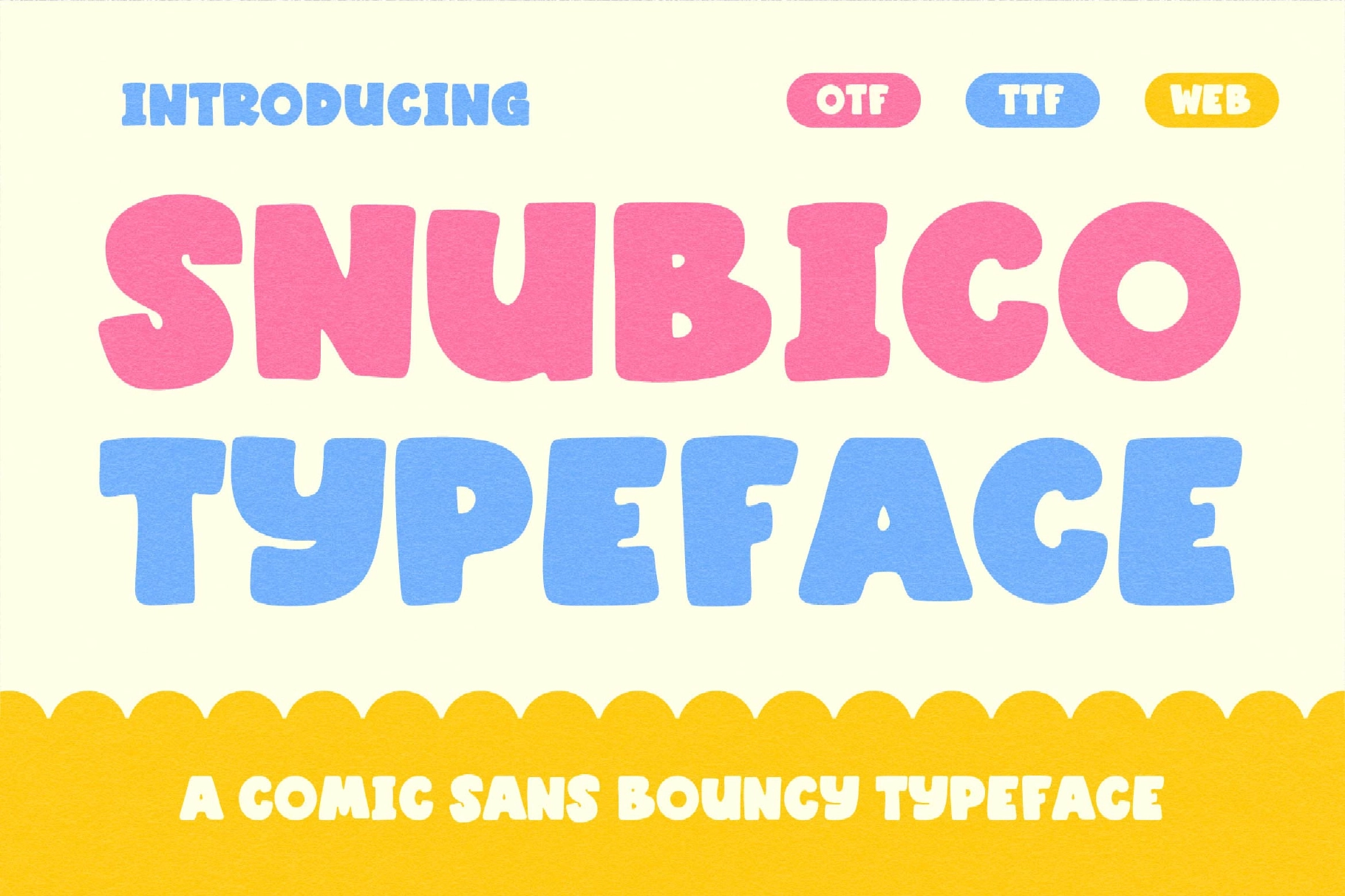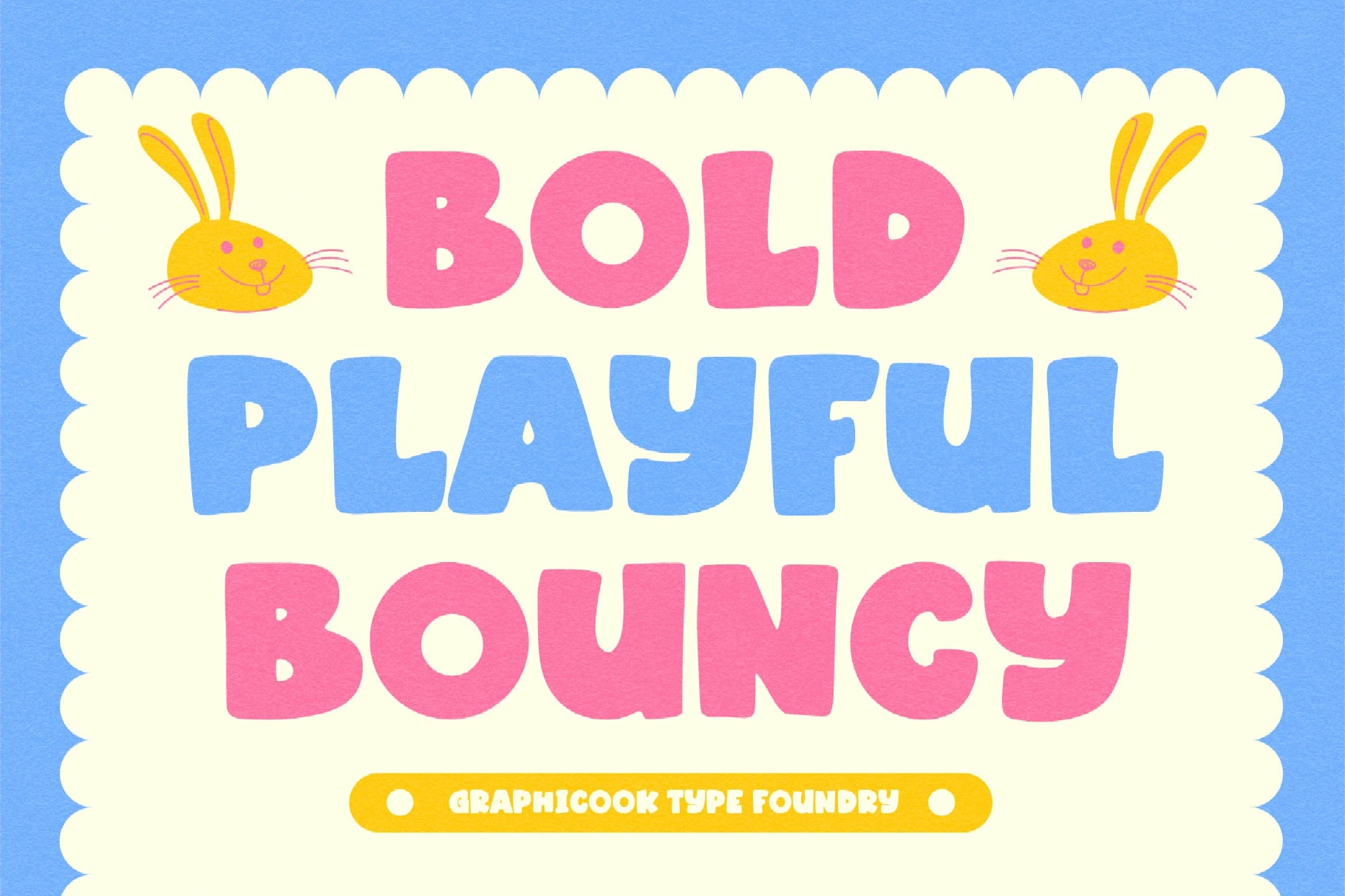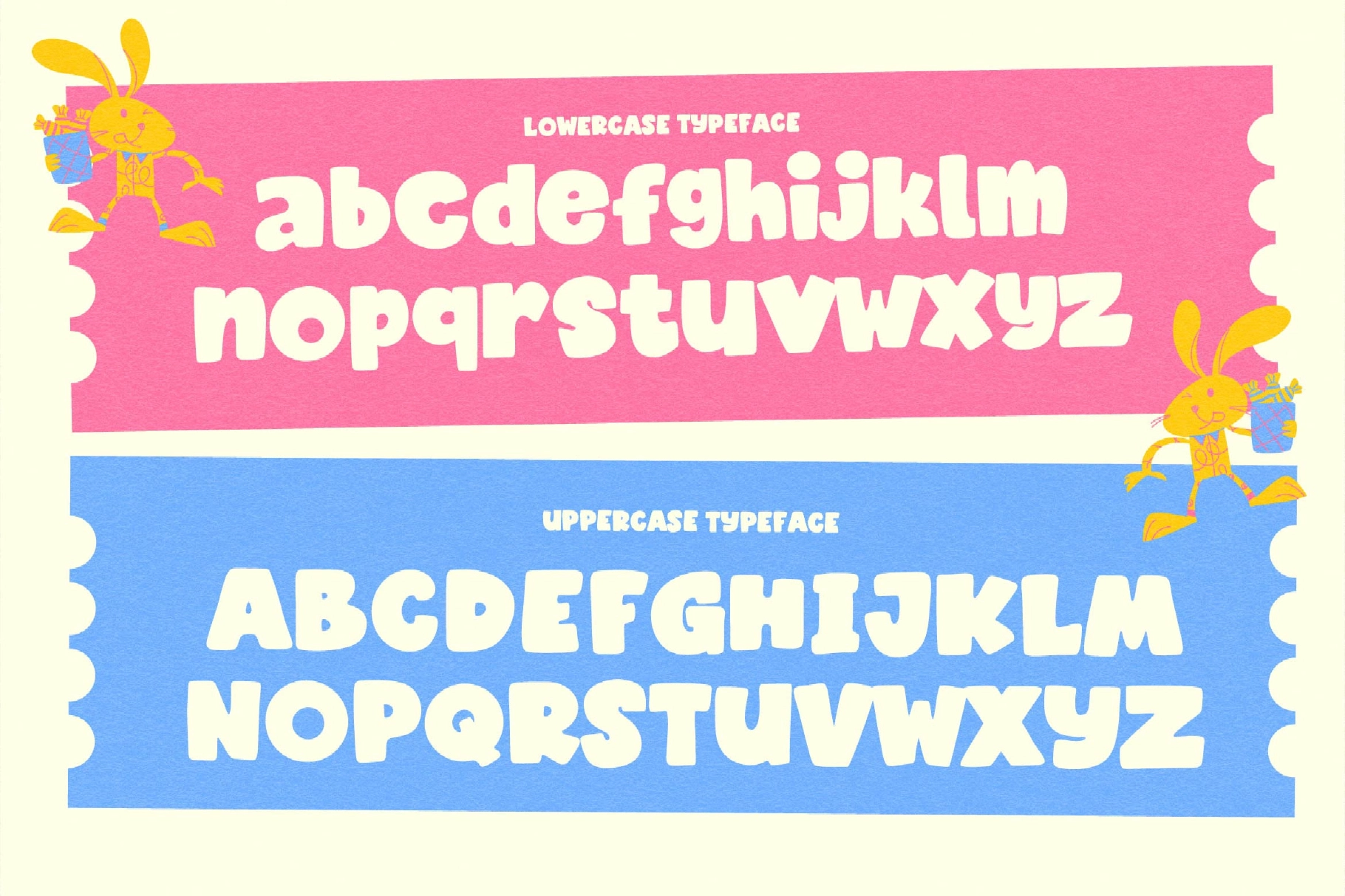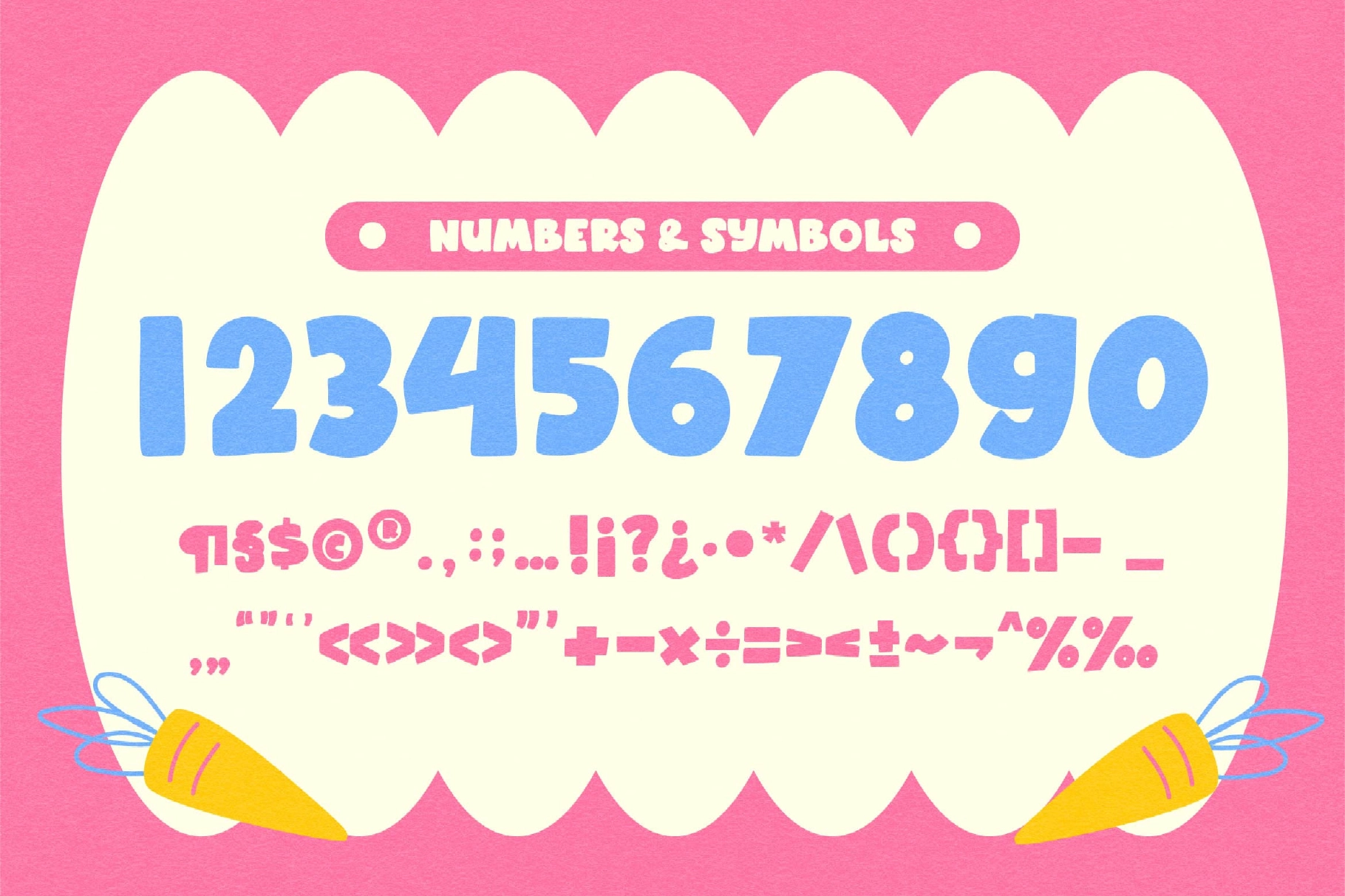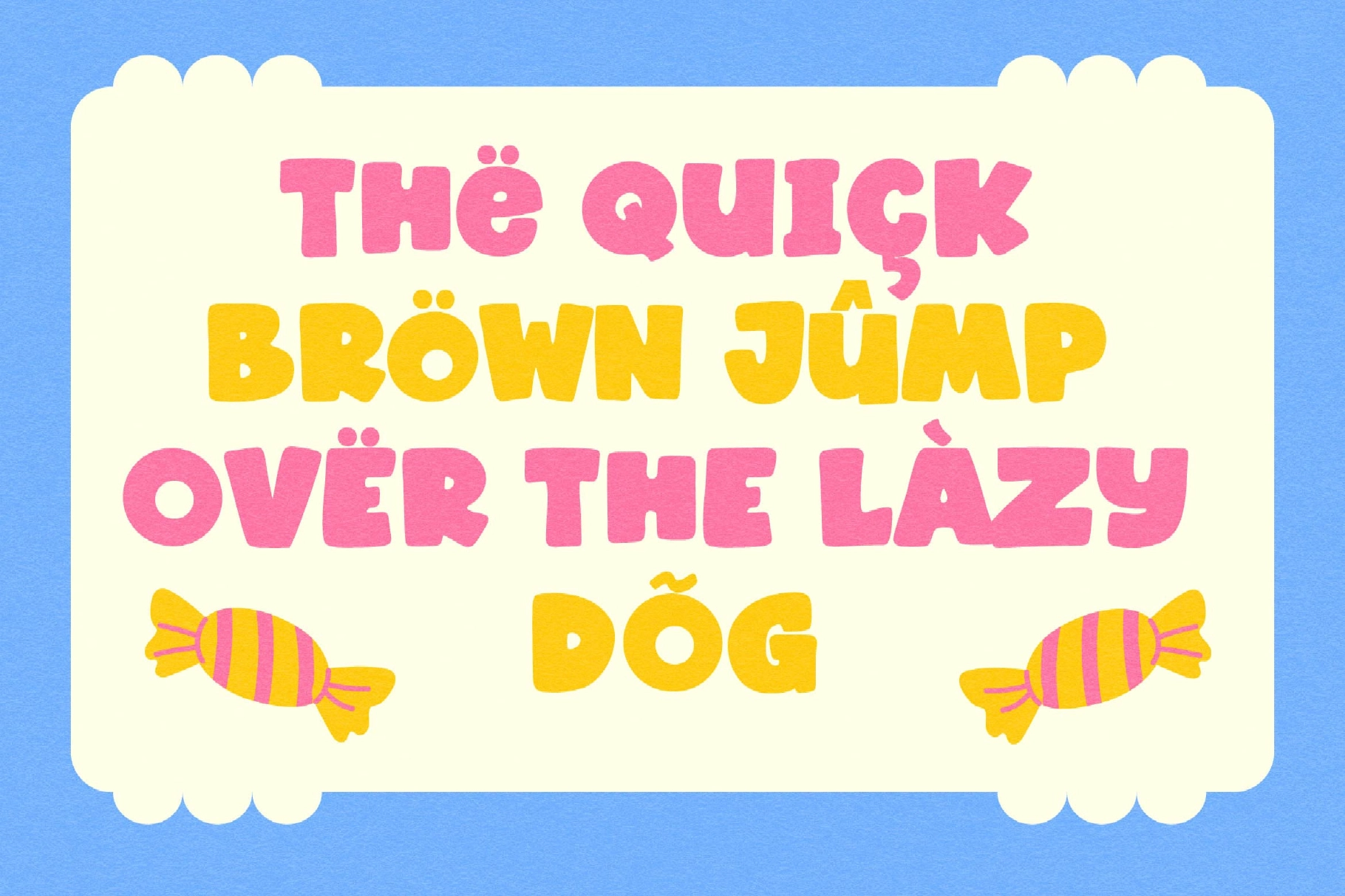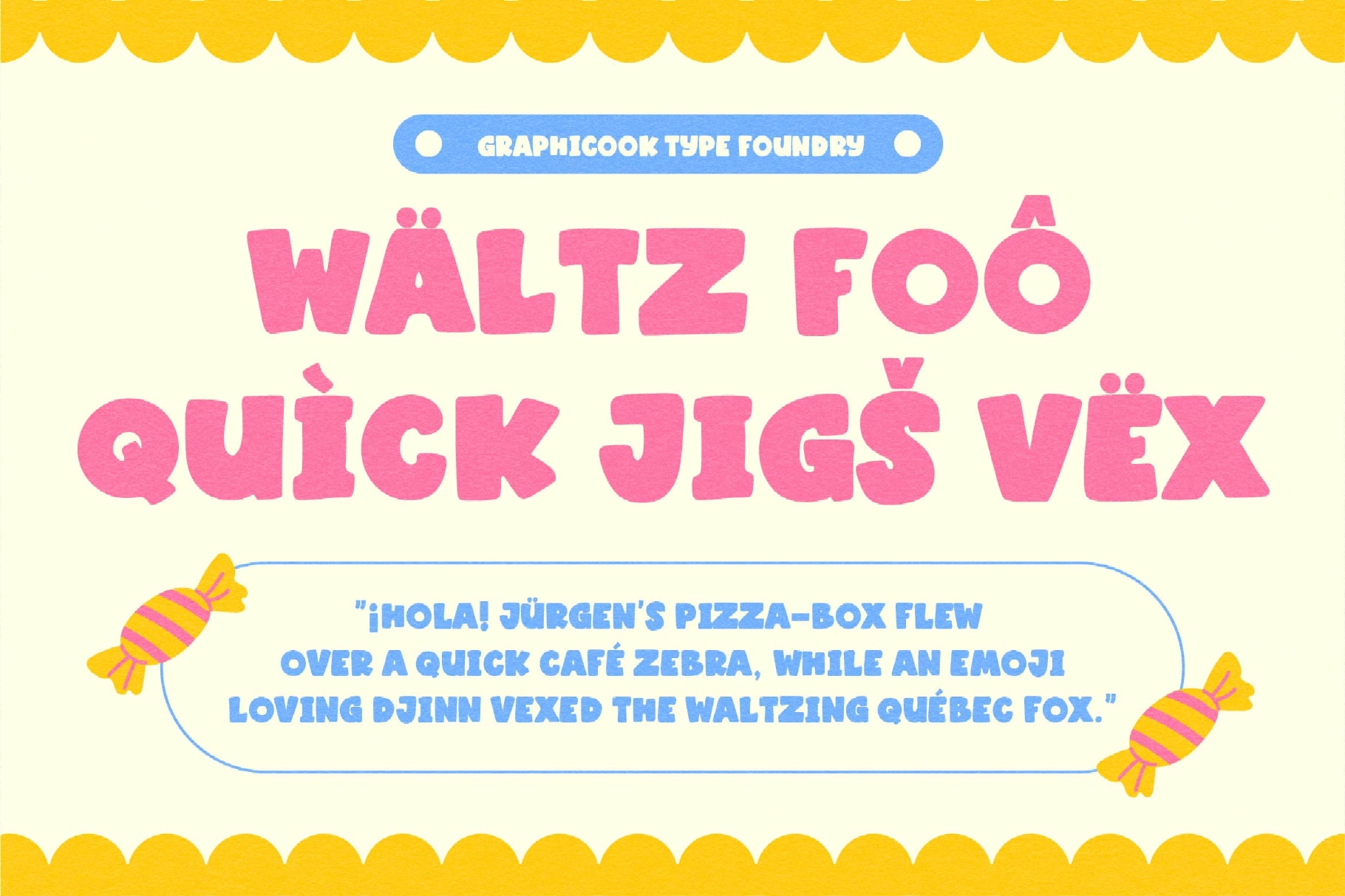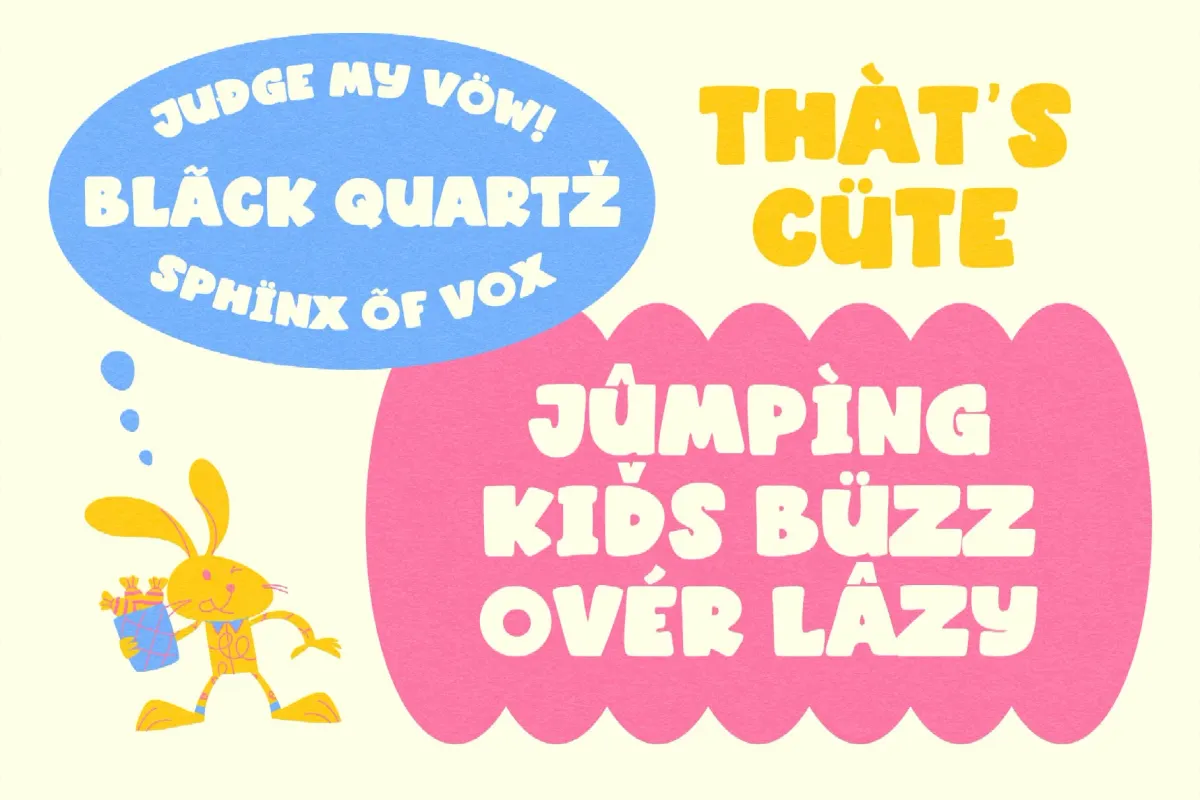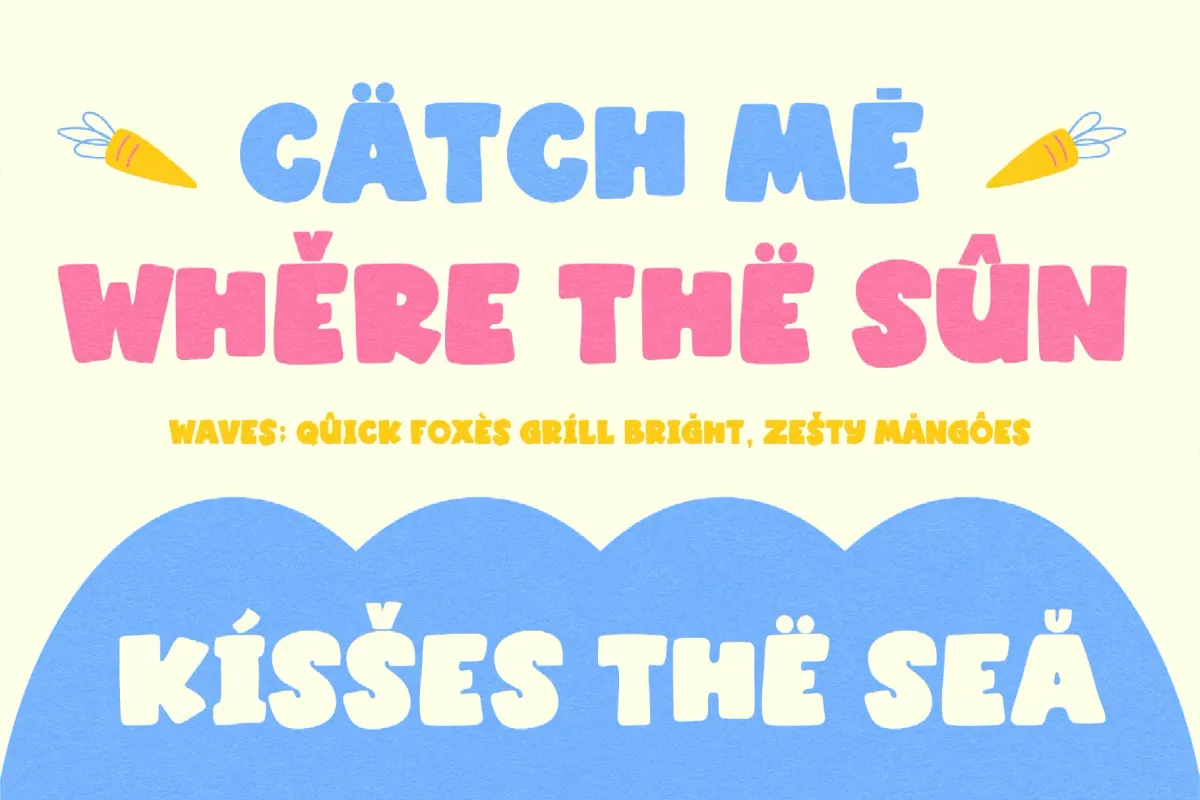
Snubico Font
Snubico
Snubico is a lively comic sans-style font with bouncy, handmade letterforms . Its expressive, fluid shapes add a fun and friendly character, making it ideal for posters, branding, and playful design themes.